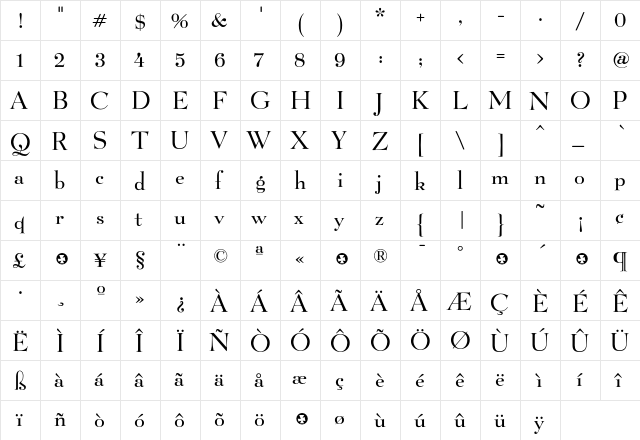
BeLucianBook Regular
Design Context for BeLucianBook Typeface
BeLucianBook takes a measured approach to typography — its balanced proportions and neutral character make it a reliable workhorse for both digital and print work.
Pro Tip: Pair BeLucianBook with a font of contrasting weight or personality to build a more expressive typographic hierarchy.